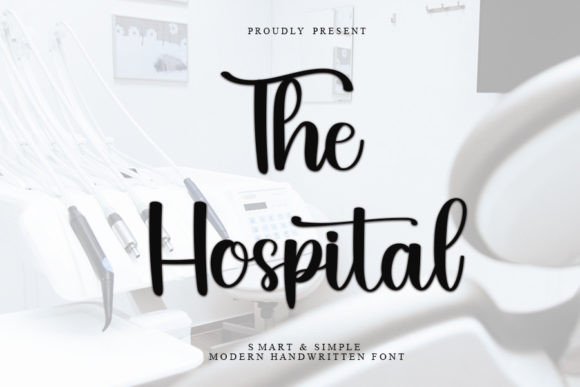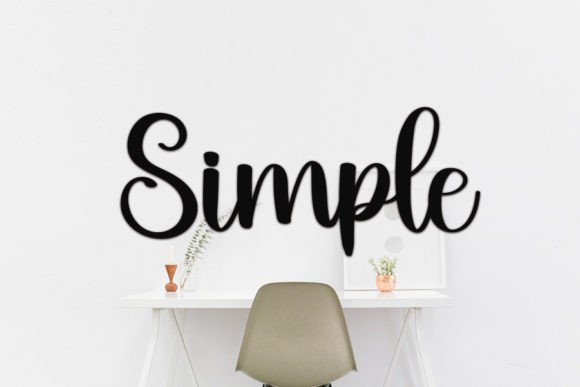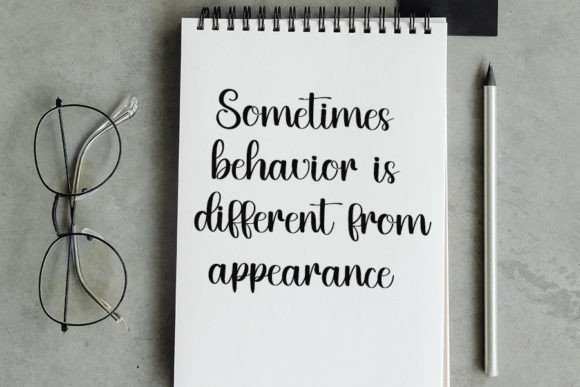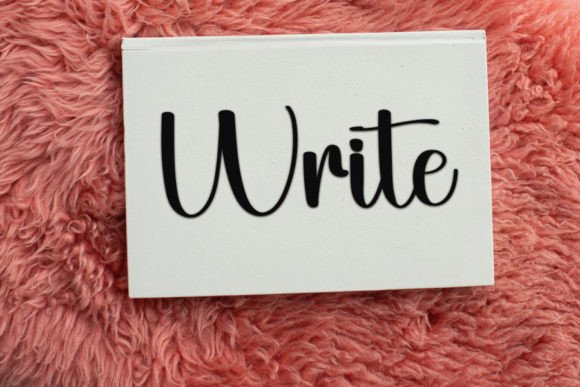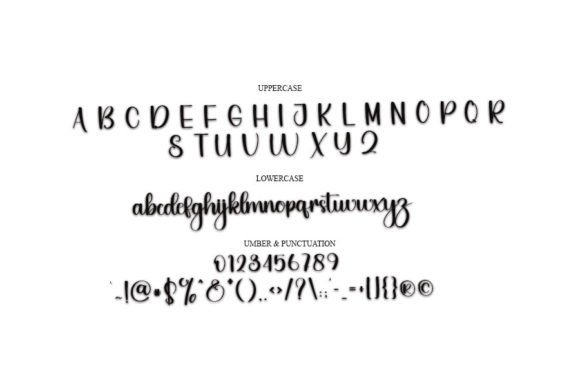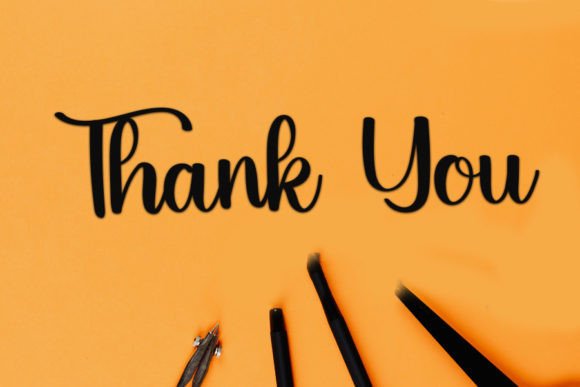
The Hospital
About The Hospital
The Hospital A font designed for your business needs, using this font you can grow rapidly, besides that this font is also suitable for making flayers, wedding invitation cards, logos, banners, birthday cards, YouTube, thumbnails. Elegant fonts and expensive styles will make consumers interested in owning them.
Has Characters above international standards as well as PUA Encoded which means you can access all the glyphs and swashes easily.. Smooth Style and suitable for a wide range of applications.